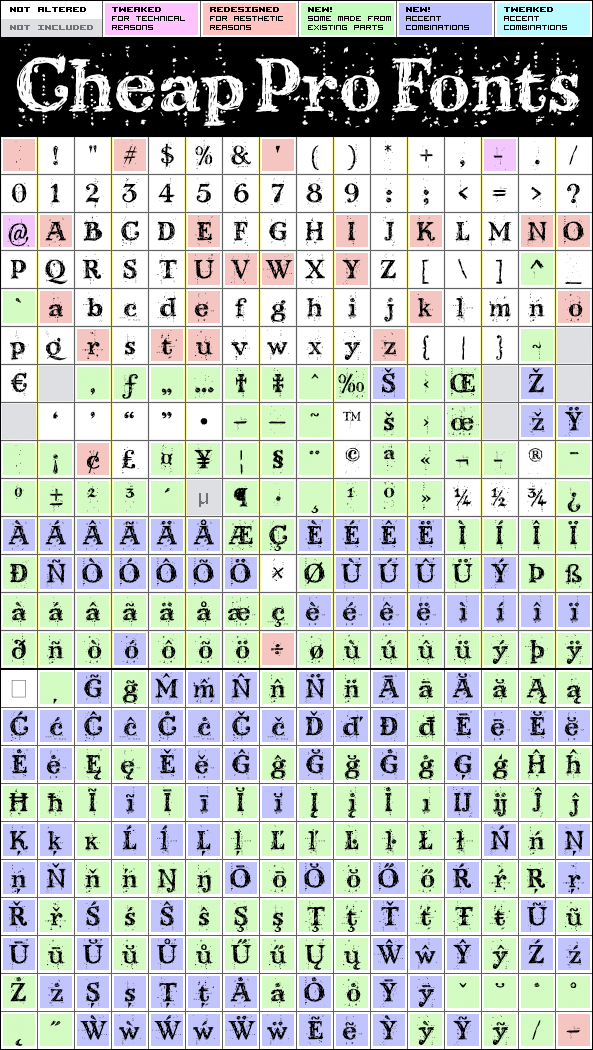
Kingthings Scrybbledot Pro
Kingthings Scrybbledot Pro by Kevin King
Designer:
Kevin King
Highlights:
376 glyphs!
(109 in original)
503 class kernpairs
= 10000 kerning pairs
(113 in original)
Description:
A fun and charming scribbled alphabet - perfect for scrapbooking and that handmade look. Lots of technical details to fix, but it now has a professional quality, and our impressive language support! :)
Kevin King says: "The Scrapbooking People have asked for grungy fonts - and this is one of my efforts to comply. I scribbled the letters in Paint shop Pro and imported the results into my font program directly. This is the first font i have created directly on the computer without any paper sketches - I think it took considerably more work!"
Kingthings Scrybbledot Pro is a professionally reworked font that contains an extended character set for setting text in 65 languages requiring more than the basic A-Z!